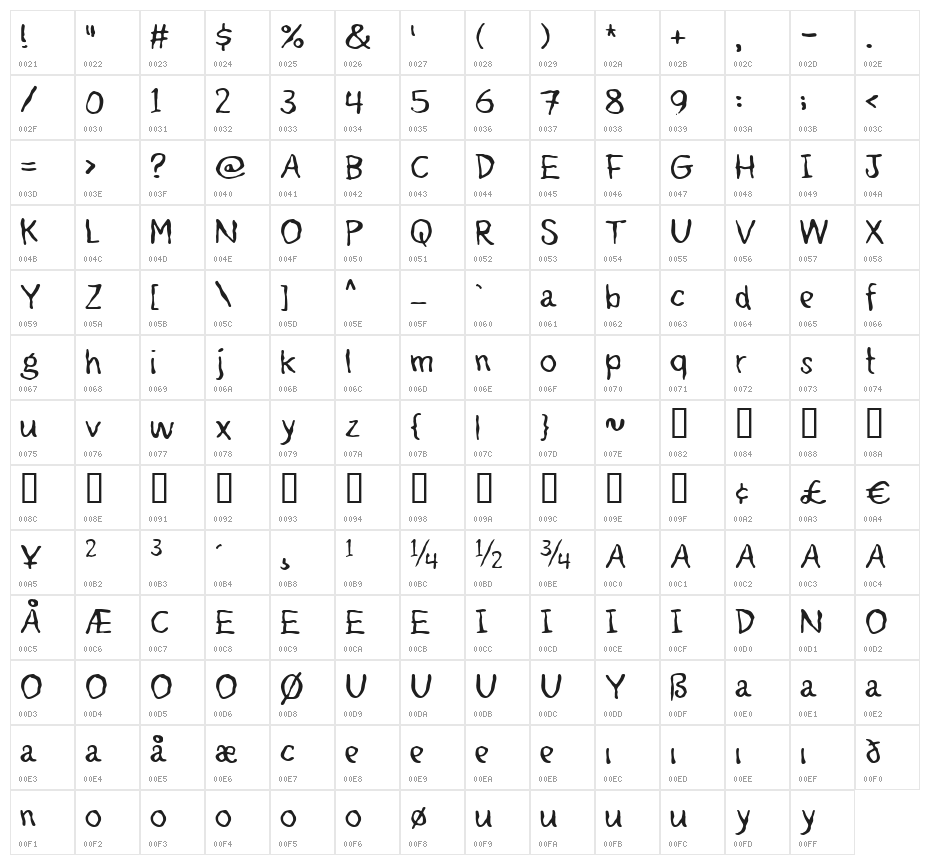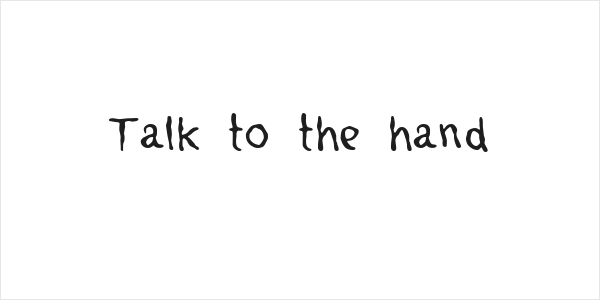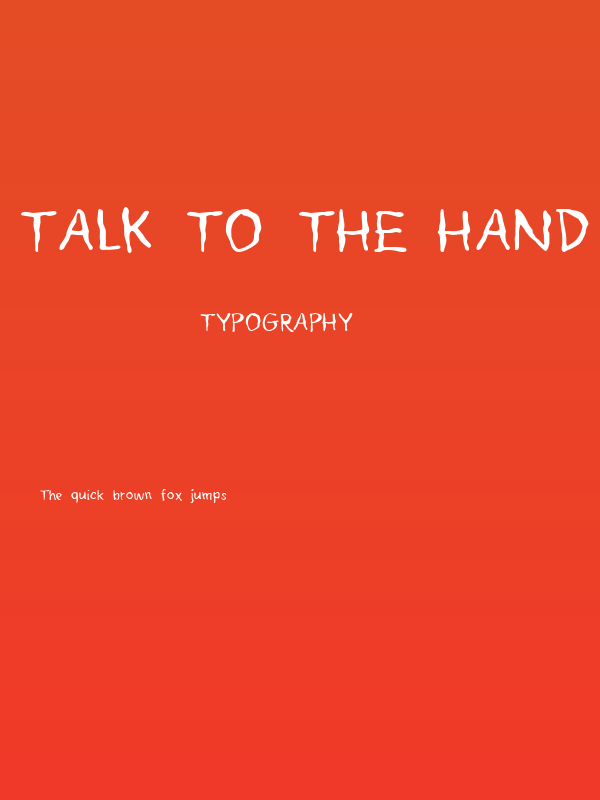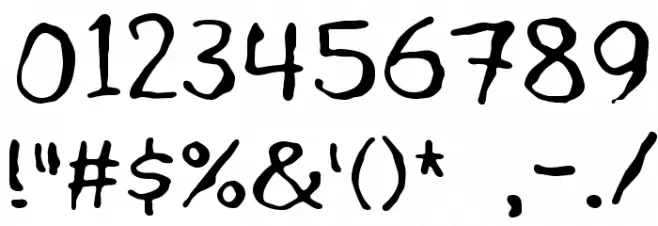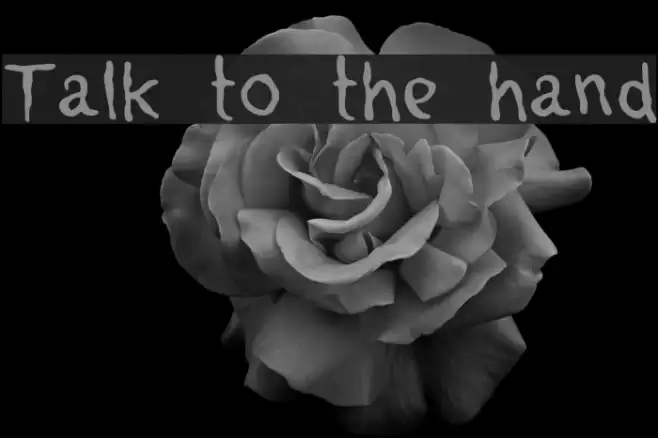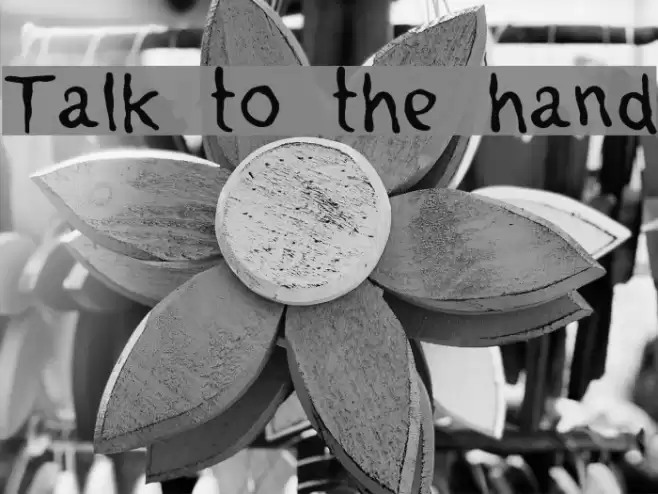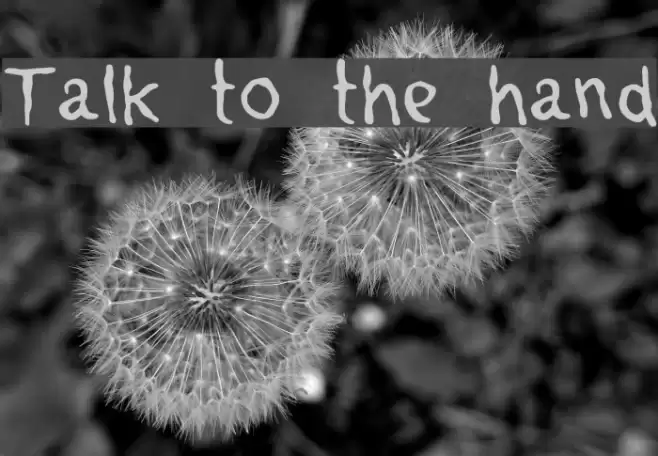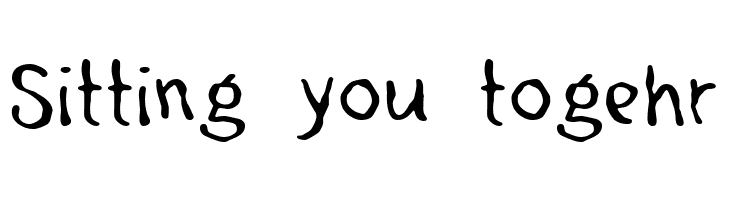
Talk to the hand Font
Talk to the hand Description
This font exudes a playful and casual vibe, characterized by its handwritten style that mimics the natural flow of a marker or brush pen. The letters are slightly irregular, adding to the informal and approachable feel. The strokes vary in thickness, giving a dynamic and lively appearance. The characters are well-spaced, ensuring readability while maintaining a relaxed aesthetic. This font is versatile, suitable for projects that require a personal touch or a creative flair, such as invitations, greeting cards, or informal branding.
| Overall Style | Casual, Playful |
| Use Case | Headlines, Informal text, Creative projects |
| Proposed Projects | Ideal for invitations, greeting cards, children's books, or informal branding. |